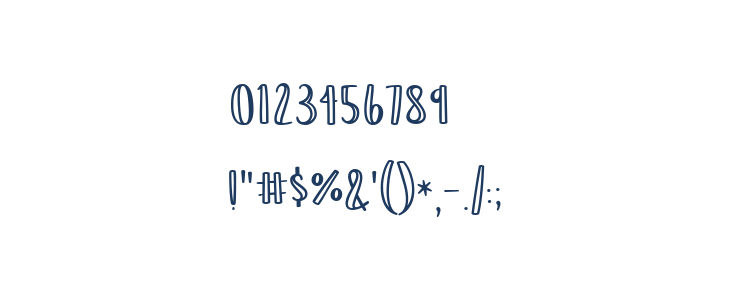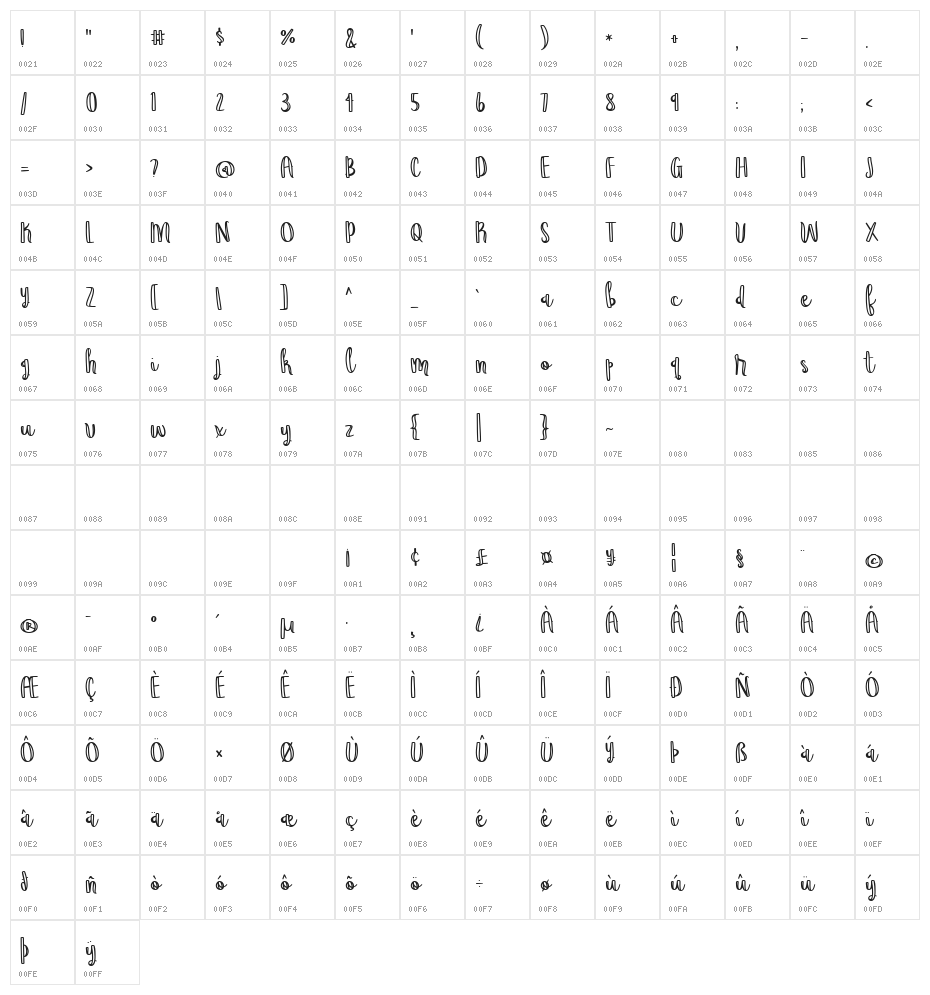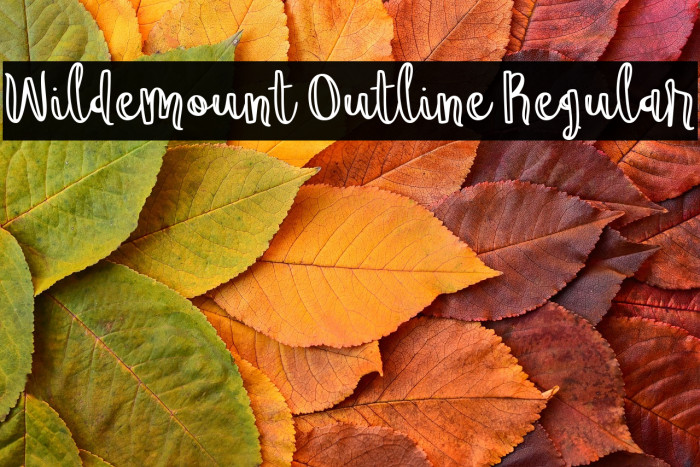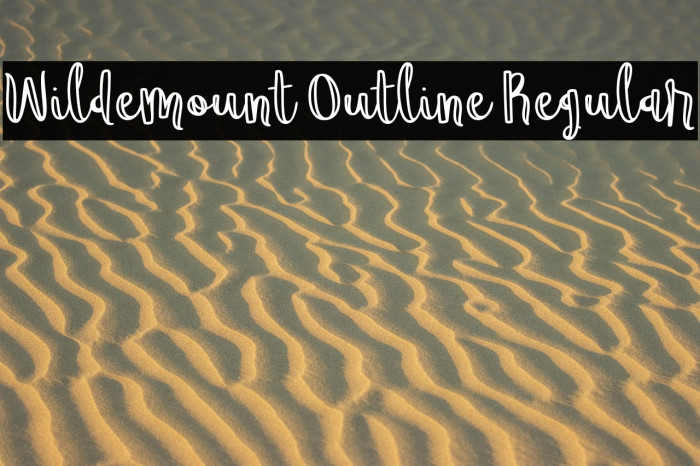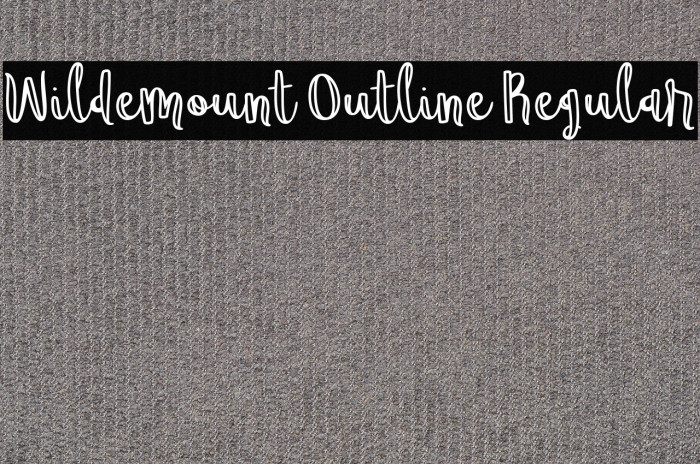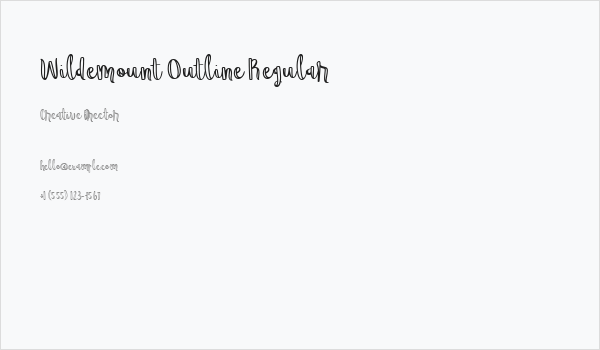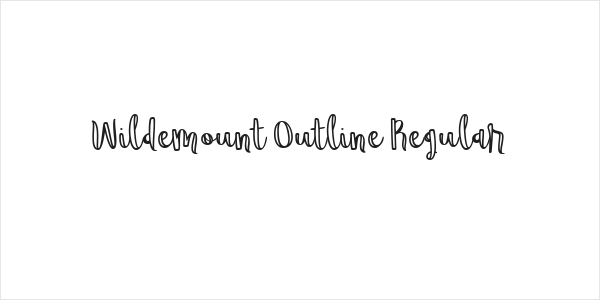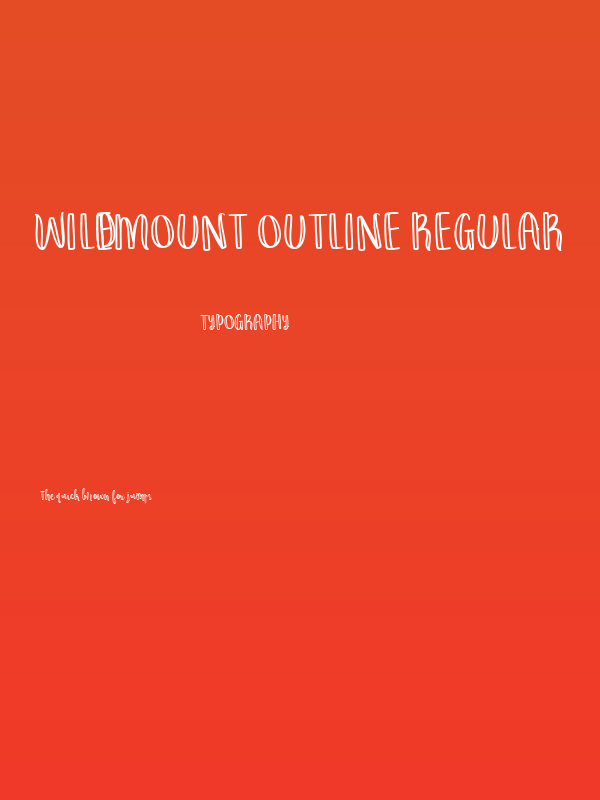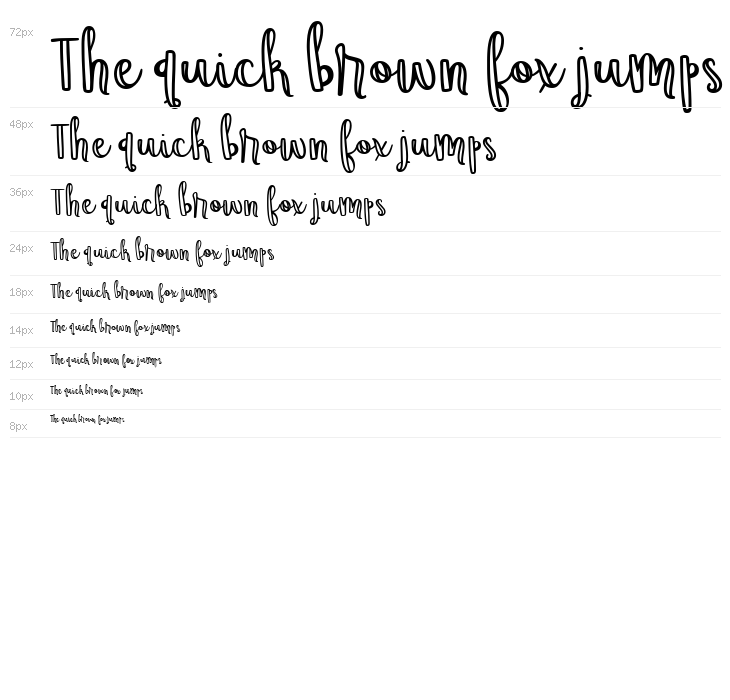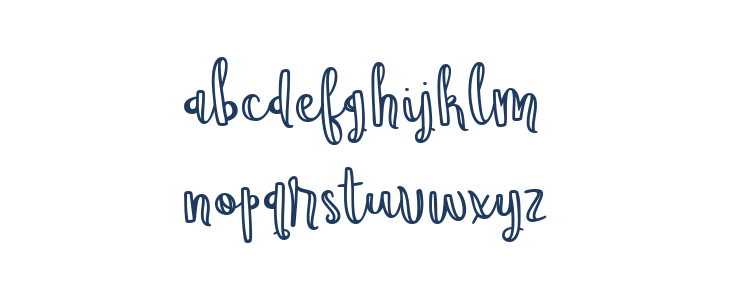
Wildemount Outline Regular Font
This font features a playful and whimsical outline style, characterized by its bold and flowing letterforms. The uppercase letters are tall and narrow, with a distinct hand-drawn quality that adds a touch of personality. The lowercase letters maintain this playful aesthetic, with some letters featuring loops and curls that enhance the font's charm. The numbers are consistent with the overall style, offering a cohesive look across all characters. Special characters are included, maintaining the same outline and playful design. This font is ideal for projects that require a fun and engaging visual element.
Overall StylePlayful, Whimsical
Proposed ProjectsPerfect for children's book covers, playful branding, greeting cards, and creative posters.